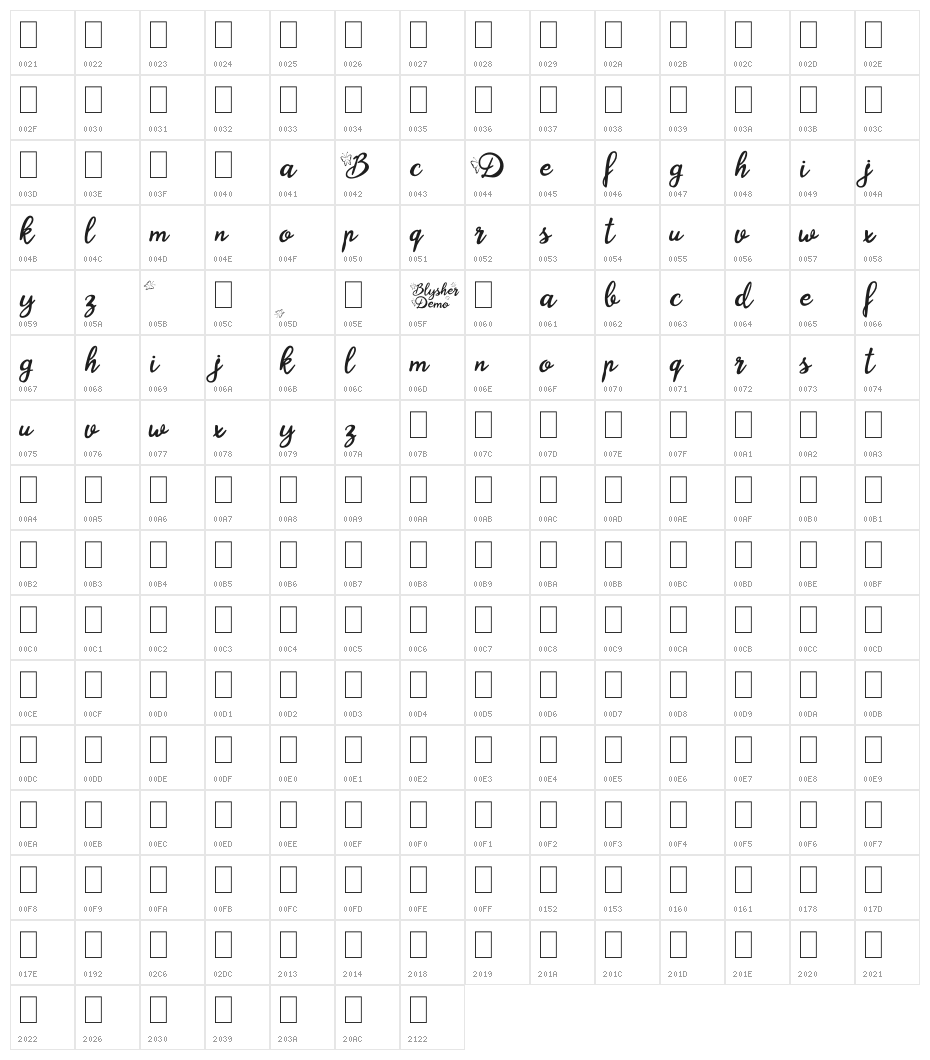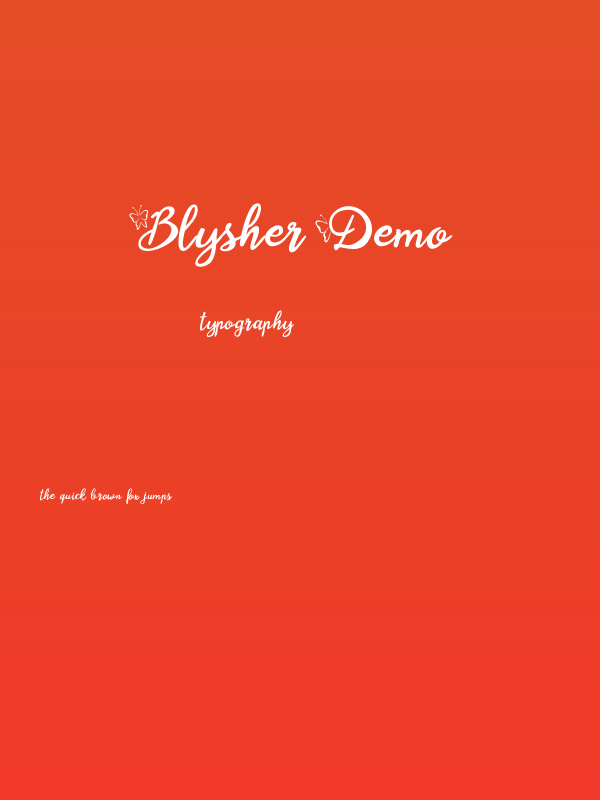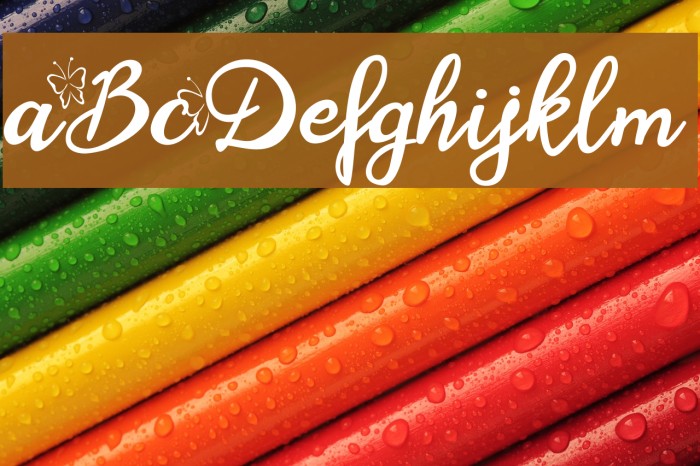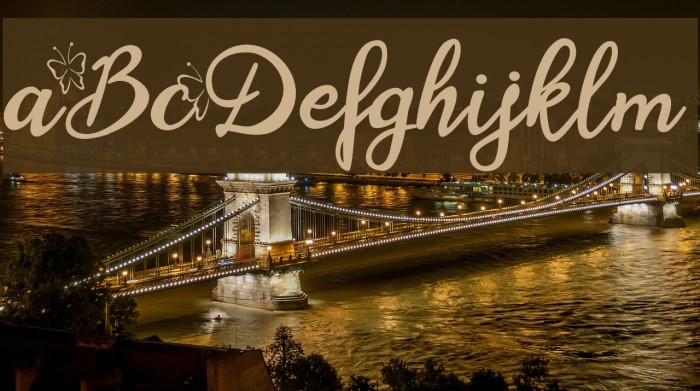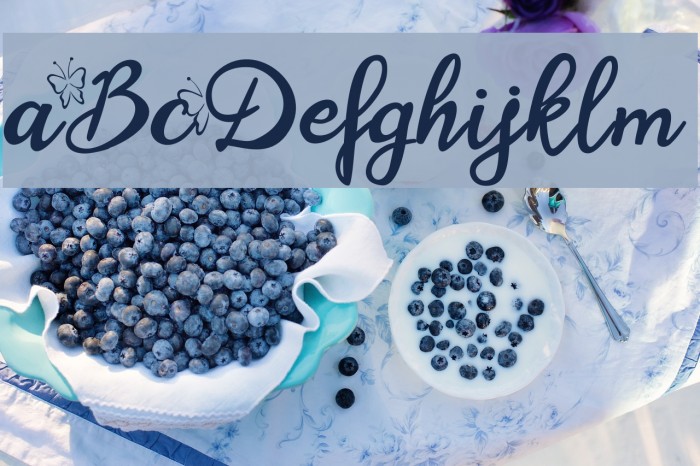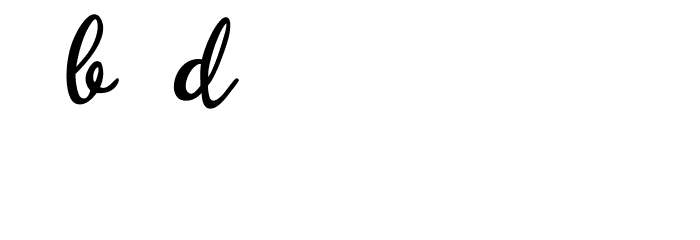
Blysher Demo Font
Blysher Demo Description
This font features a playful and elegant script style, characterized by smooth, flowing lines and a handwritten appearance. The letters are interconnected, creating a sense of continuity and fluidity. Decorative elements, such as butterflies, add a whimsical touch to certain characters, enhancing its charm. The strokes are moderately thick, providing a bold presence while maintaining readability. This font exudes a sense of creativity and personal touch, making it ideal for projects that require a friendly and approachable aesthetic.
| Proposed Projects | Ideal for wedding invitations, greeting cards, personal branding, and creative projects that require a personal touch. |